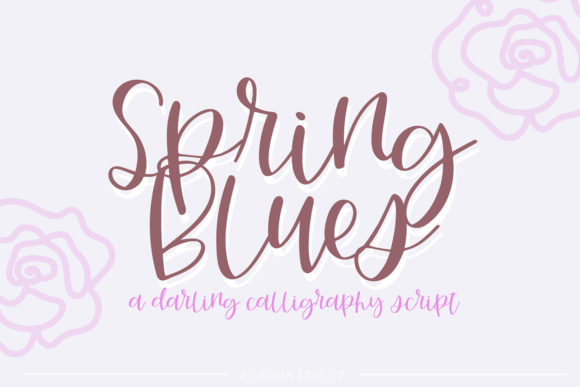
In a world where conformity reigns supreme, Spring Blues Font emerges as a refreshing burst of creativity, an enchanting script font that captivates with its playful curves and whimsical details. Inspired by the carefree spirit of childhood, Spring Blues dances across the page like a mischievous fairy, leaving a trail of joy and wonder in its wake.
With its charming letterforms, Spring Blues is the perfect font for unleashing your inner child, whether you're crafting magical children's books, designing eye-catching packaging, or seeking a touch of fun for creative projects. This font is more than just a collection of characters; it's a gateway to a world where imagination runs wild and dreams take flight.
Picture this: a children's book brought to life with Spring Blues. The words dance and twirl, as if each letter were a mischievous sprite, eager to tell its tale. Children will be enthralled as they follow the adventures of their favorite characters, guided by the playful strokes of Spring Blues.
Designers, too, will find solace and inspiration in Spring Blues. Its unique design adds a touch of whimsy to packaging, creating an enchanting experience for customers. Products adorned with Spring Blues' playful charm will stand out on shelves, beckoning shoppers with their irresistible allure.
And for those seeking creative freedom, Spring Blues is the missing piece to your puzzle. Its versatile nature lends itself to a myriad of designs, from whimsical logos to captivating social media graphics. Let your imagination soar as you explore the boundless possibilities of this remarkable font.